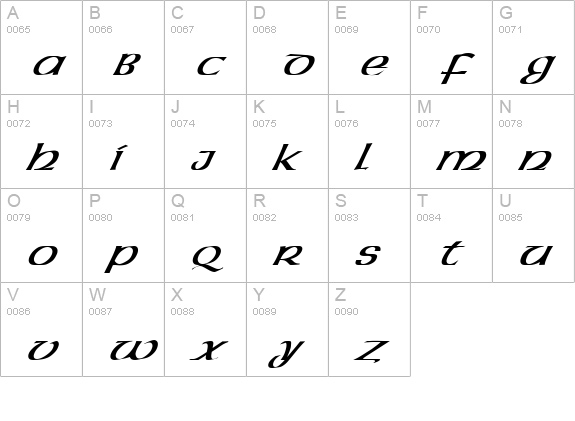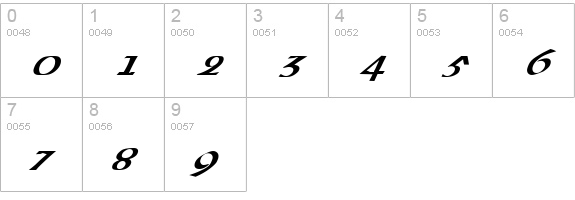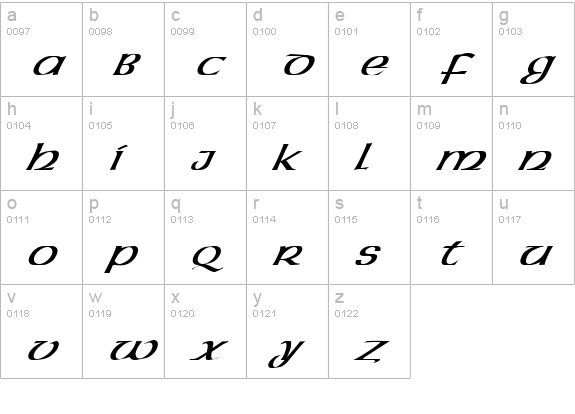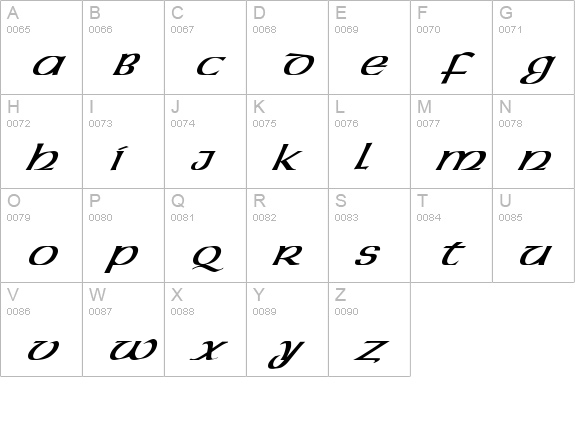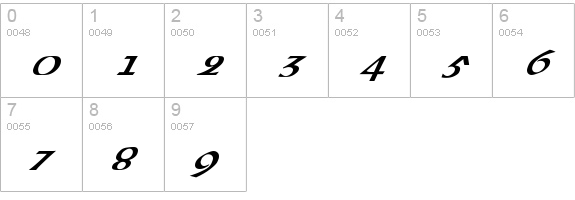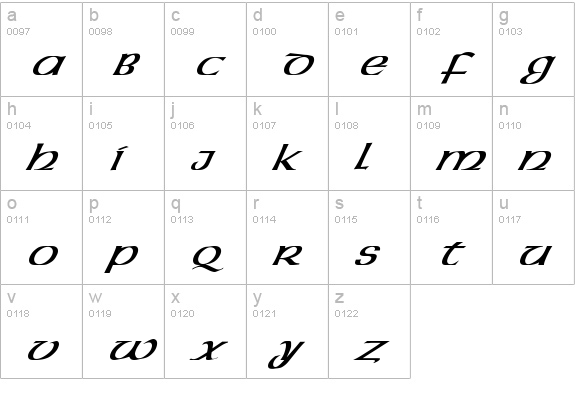
LateranItalic Font Details
LateranItalic is a stylish and sophisticated font that exudes elegance and charm. Its sleek, slanted design adds a touch of modernity to any project, making it perfect for both formal and informal purposes. The graceful curves and clean lines of LateranItalic make it a versatile choice for a wide range of design applications, from branding and advertising to invitations and packaging. One of the best things about LateranItalic is that it is completely free to download at FontsMarket.com. This means that you can easily add this beautiful font to your collection without breaking the bank. Whether you're a professional designer looking for a fresh new typeface or a hobbyist looking to spruce up your projects, LateranItalic is sure to impress. Don't miss out on the opportunity to enhance your designs with this stunning font - download it for free today!